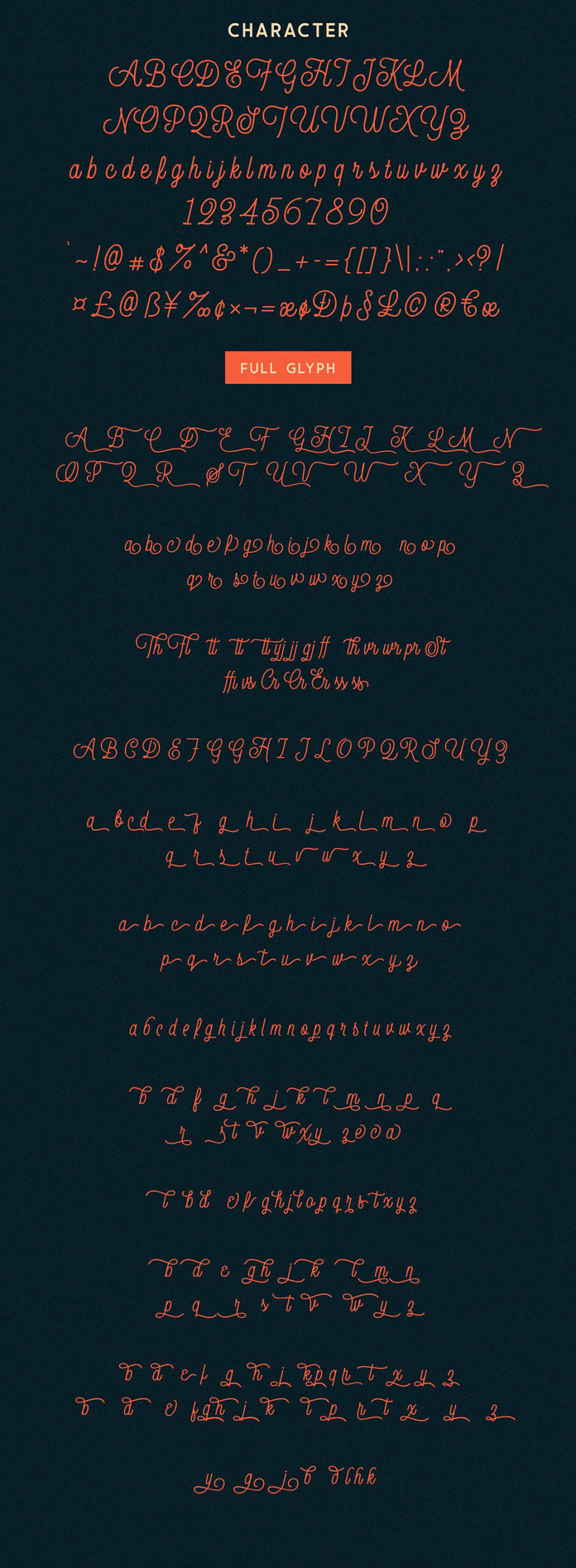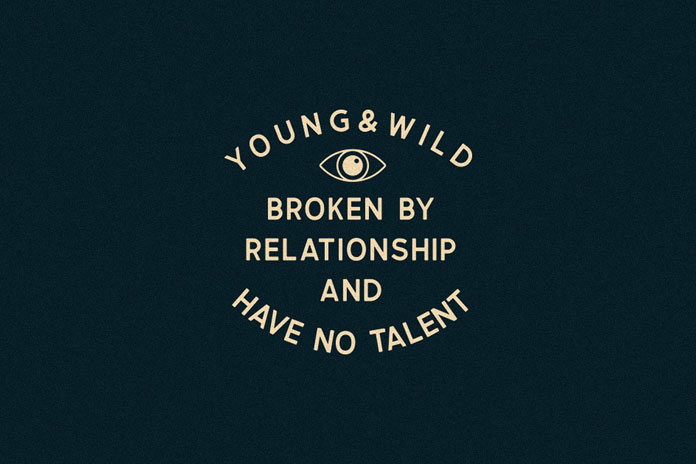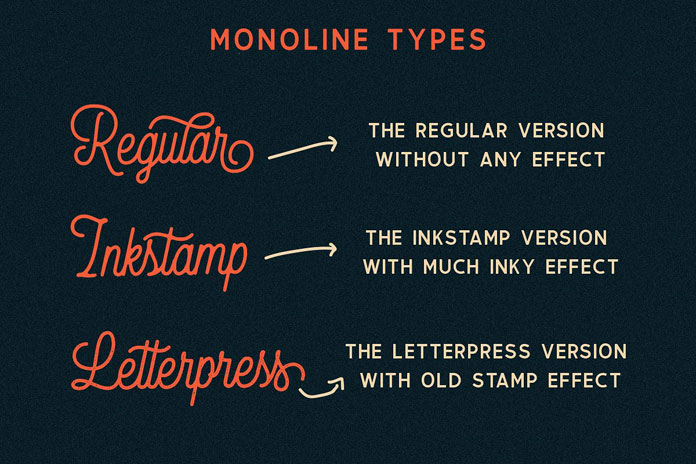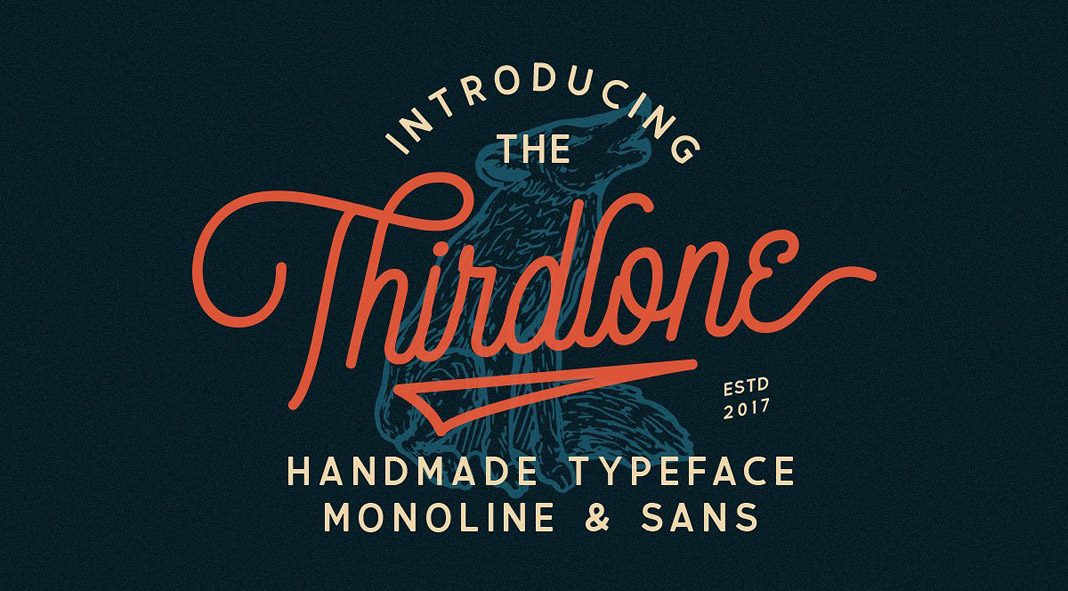
Thirdlone, a vintage-inspired font duo that comes with a nice set of bonus vector illustrations.
Hendry Juanda of studio Letterhend has created the Thirdlone, a handmade font collection consisting of both monoline and sans typefaces. In addition, Thirdlone comes with a bonus set of hand-drawn vector illustrations, which perfectly match the style of the typefaces. This set includes more than 100 vector object in various themes such as adventure, nature, animals, beach, sea, holiday, just to name a few. The fonts are a great choice for t-shirt designs, logos, brand identities, signage, headlines, quotes, and so much more. The fonts include uppercase, lowercase, punctuations, symbols, numerals, stylistic alternates, and ligatures. For further information, just have a look at the images below or click on the following link.